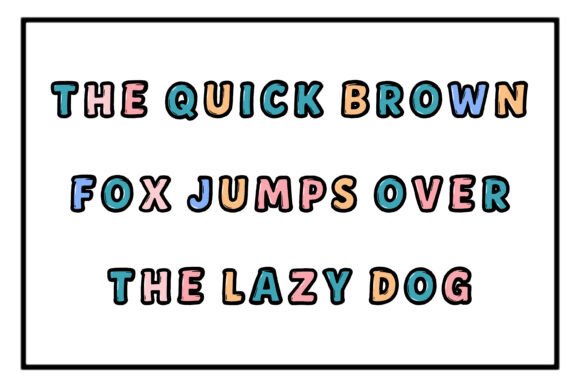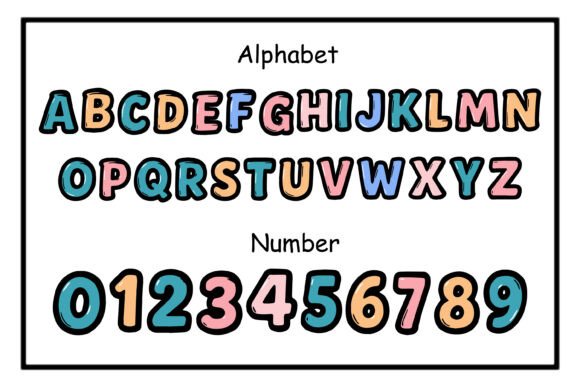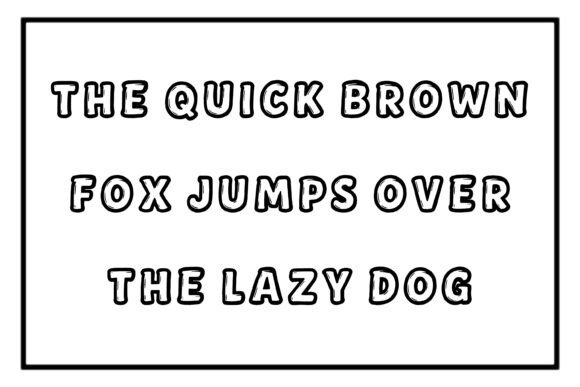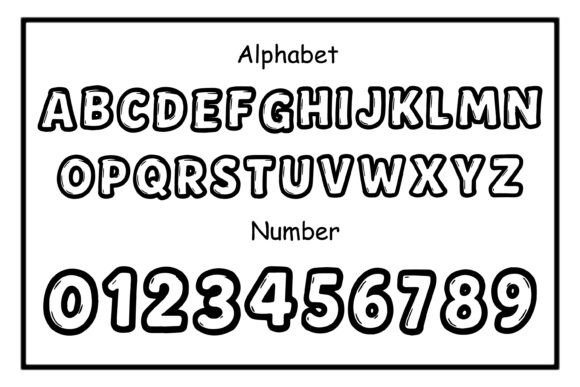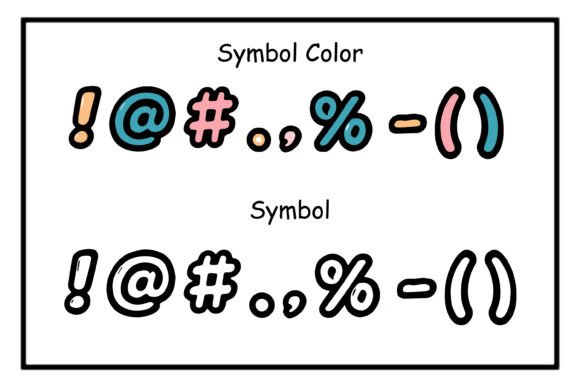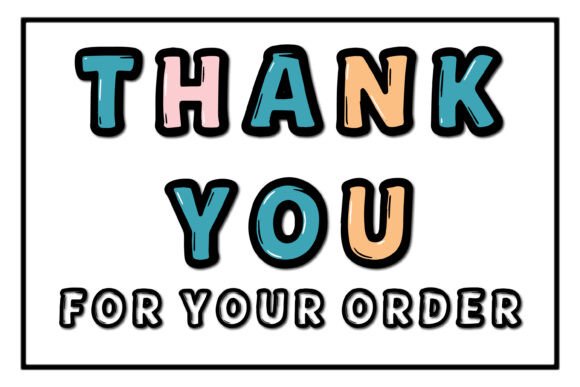
Unlocking Creativity with Doodle Outline Font
Have you ever been in the middle of a design project, pouring your heart and soul into it, only to hit a creative roadblock? I recall a particularly frustrating experience when I was working on a branding project for a children’s toy company. My client wanted a font that was playful, fun, and engaging, but I just couldn’t seem to find the right fit. That was until I stumbled upon the Doodle Outline Font, which completely transformed my design and exceeded my client’s expectations.
First Impressions: A Personal Review
As soon as I started working with Doodle Outline Font, I knew I had found something special. Here’s what I love about it:
- ✨ Vibrant and playful: This font embodies joy and whimsy, making it perfect for designs that need a splash of personality.
- ✅ Versatile: From branding initiatives to packaging designs, logotypes, and headlines, Doodle Outline Font seems to fit seamlessly into any project.
- 🌈 Color font capabilities: The ability to use this font in color opens up a world of creative possibilities.
Of course, no font is perfect, and there are a few quirks to be aware of:
- 🤔 Some glyphs can be a bit finicky: Occasionally, certain glyphs or special characters might not align perfectly, requiring a bit of manual adjustment.
- ⚠️ Not ideal for body text: Due to its playful nature, Doodle Outline Font is best used for headlines, titles, or short bursts of text rather than lengthy paragraphs.
The Story Behind Doodle Outline Font
Doodle Outline Font was inspired by the simple joy of doodling. Its creator, a passionate typographer, aimed to capture the essence of childhood creativity and translate it into a digital font. The result is a playful, uplifting typeface that brings a smile to your face.
| Font Name | Doodle Outline Font |
| Author | Quirkify |
| Is Doodle Outline Font suitable for professional branding? | Absolutely! Its unique personality can help your brand stand out, especially if you’re targeting a younger audience or want to convey a playful message. |
| Does Doodle Outline Font support OpenType features? | Yes, it does! You can access a range of glyphs and stylistic alternates to further customize your text. |
| Can I use Doodle Outline Font in both print and digital designs? | Yes, this font is versatile enough for both print and digital use, making it a great addition to your design toolkit. |
In conclusion, Doodle Outline Font is more than just a font – it’s a tool to unlock creativity and bring joy to your designs. Whether you’re a seasoned designer or a creative hobbyist, this font has the potential to elevate your projects and make them truly memorable.